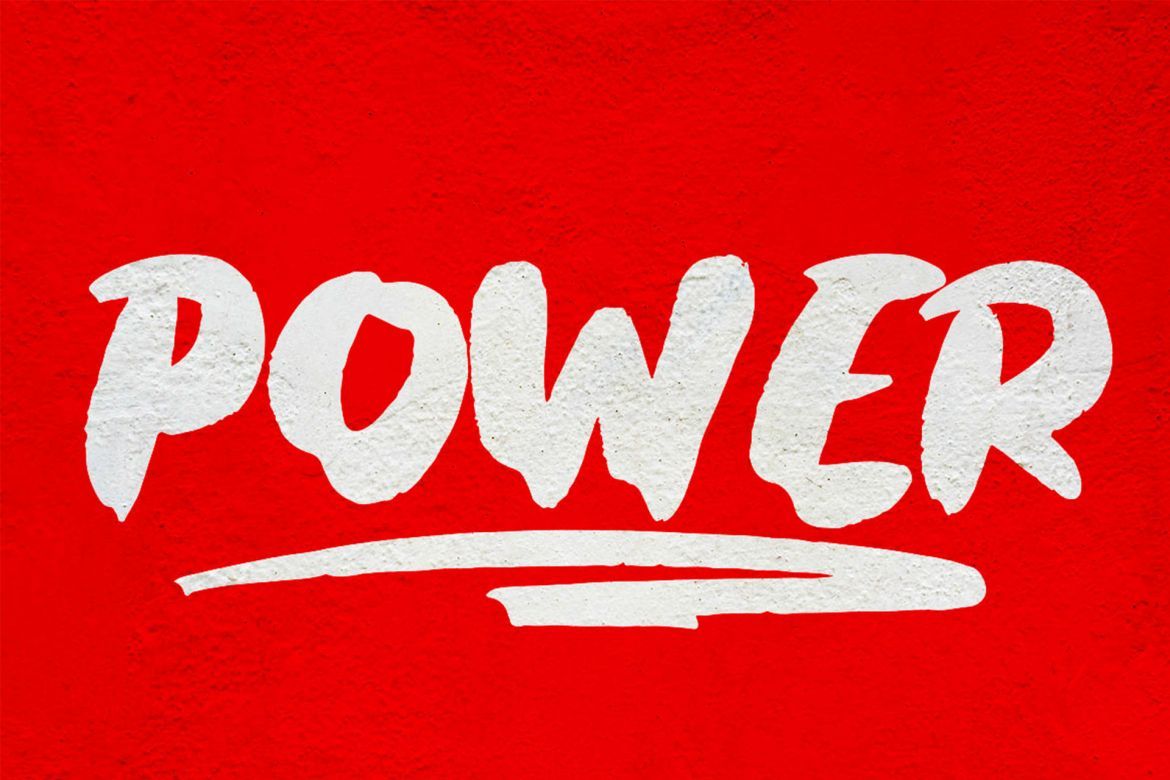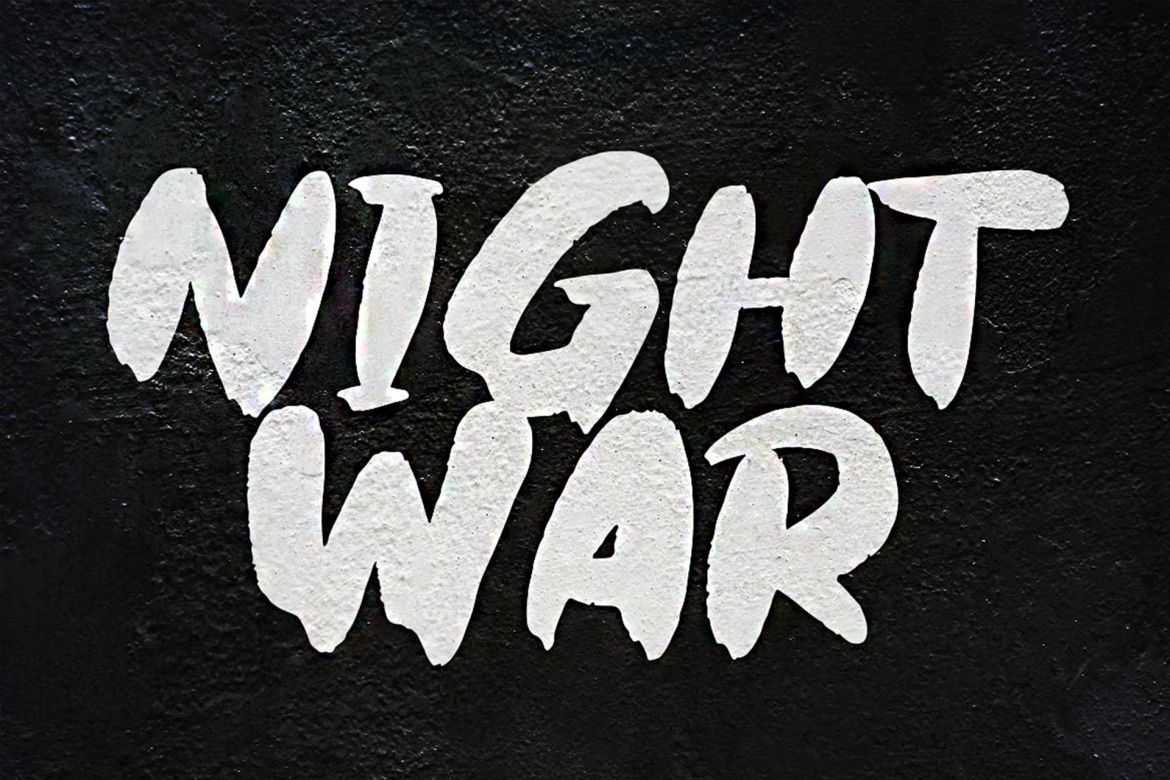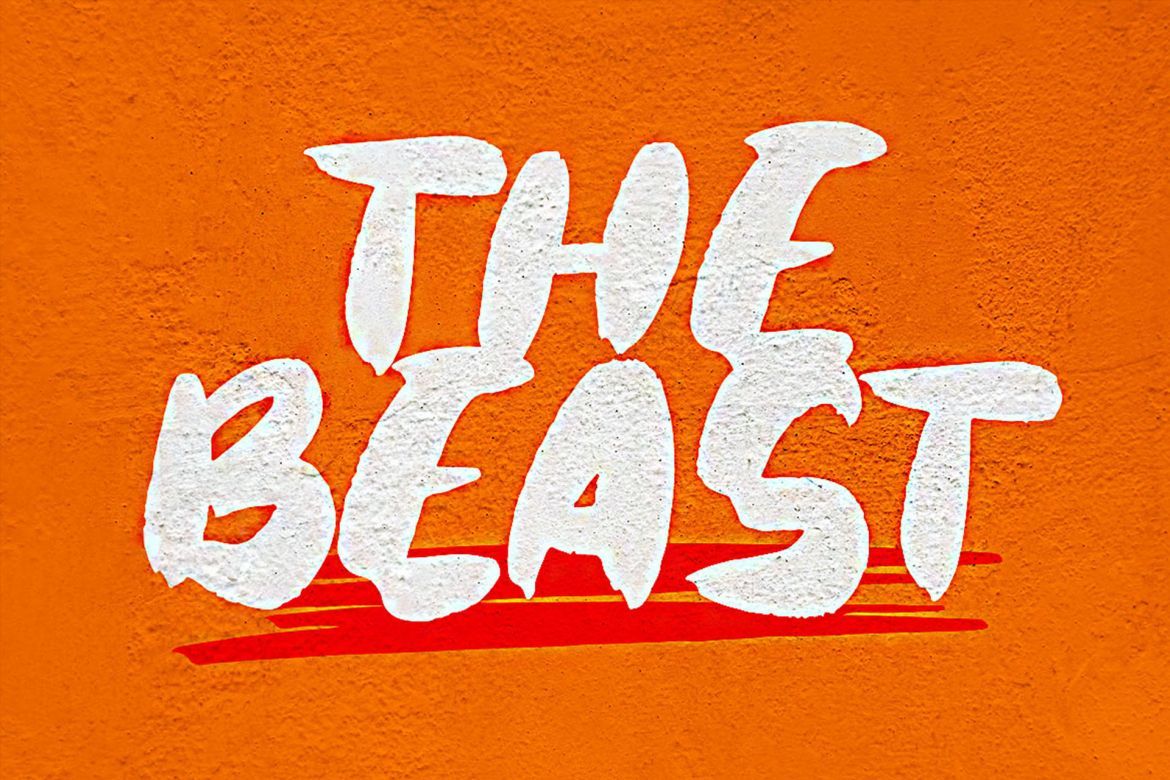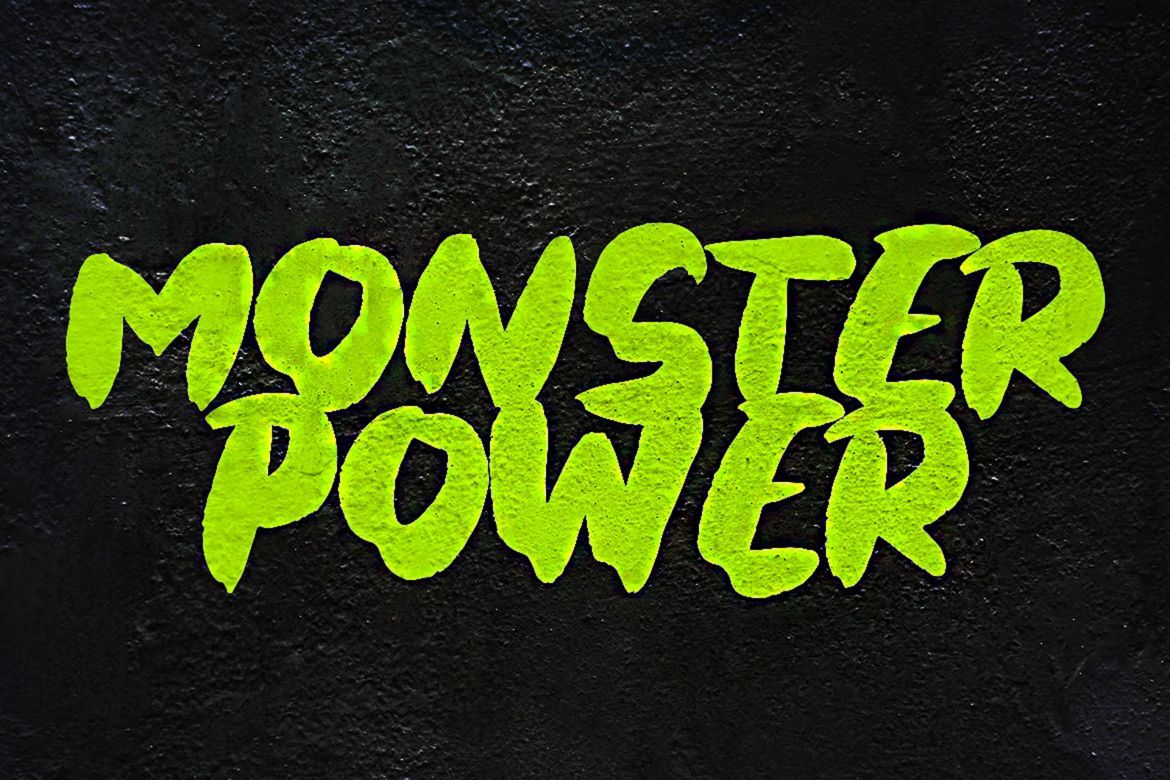
Tisgic Brush Font
Tisgic is Natural Handlettering Font. This font is perfect for logo, quote, poster, playful lettering, for clothing, or any design projects.
• good font for ads
• natural handwritten